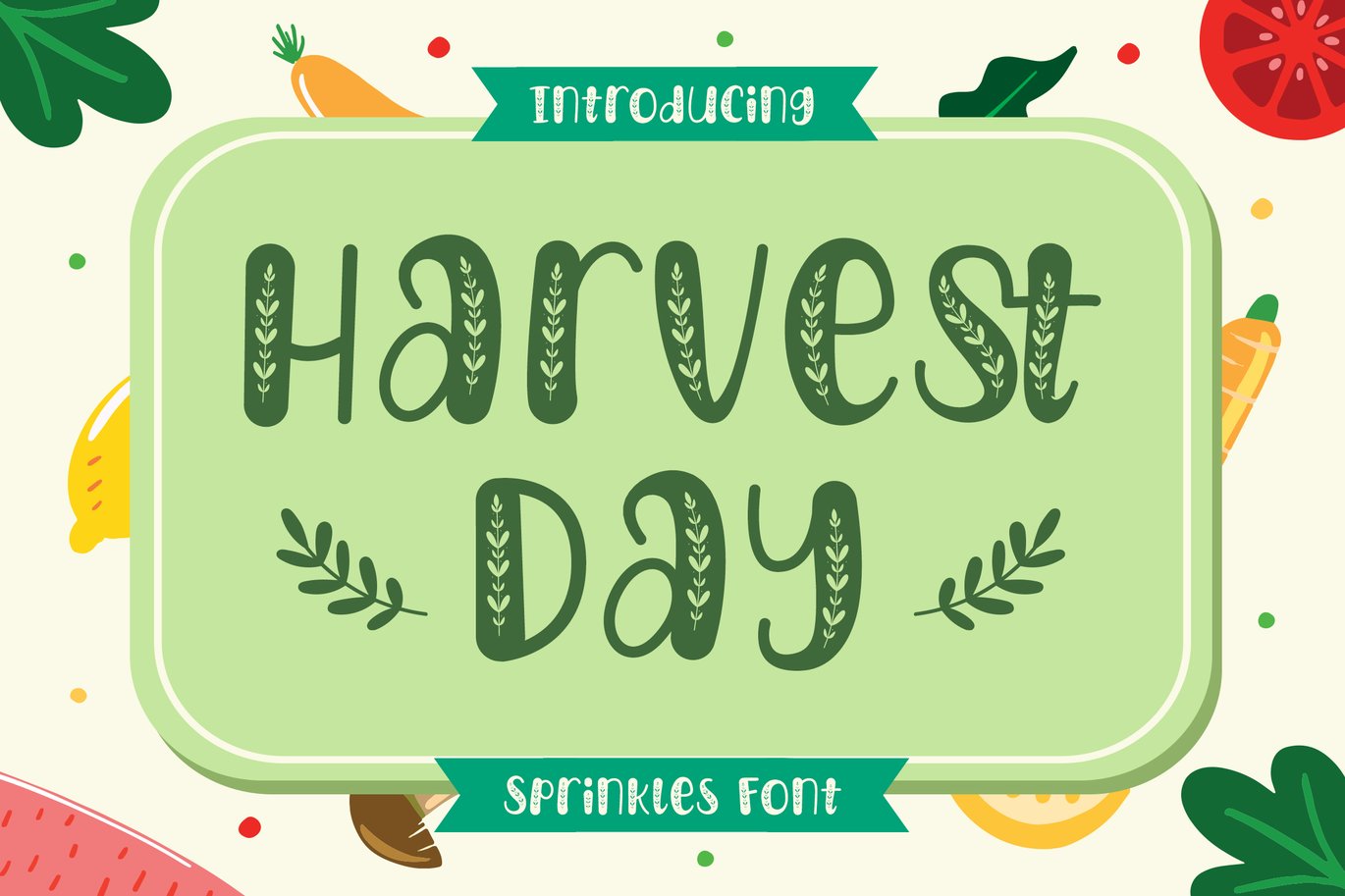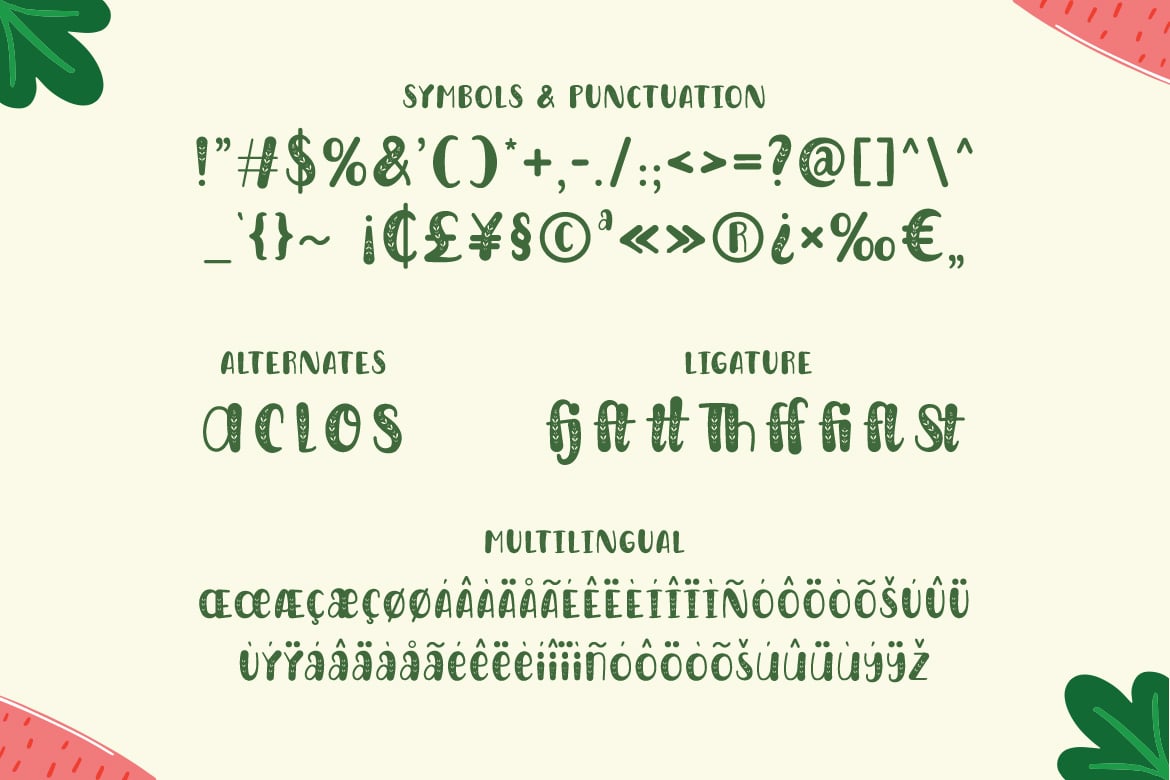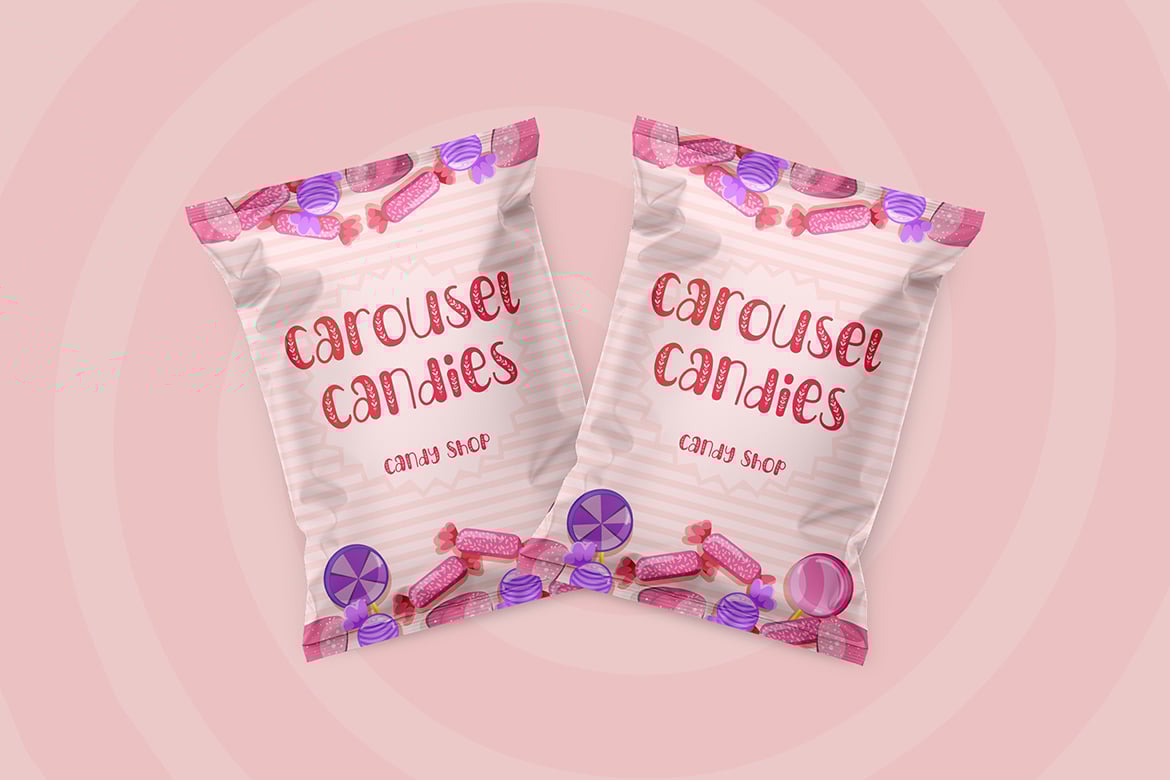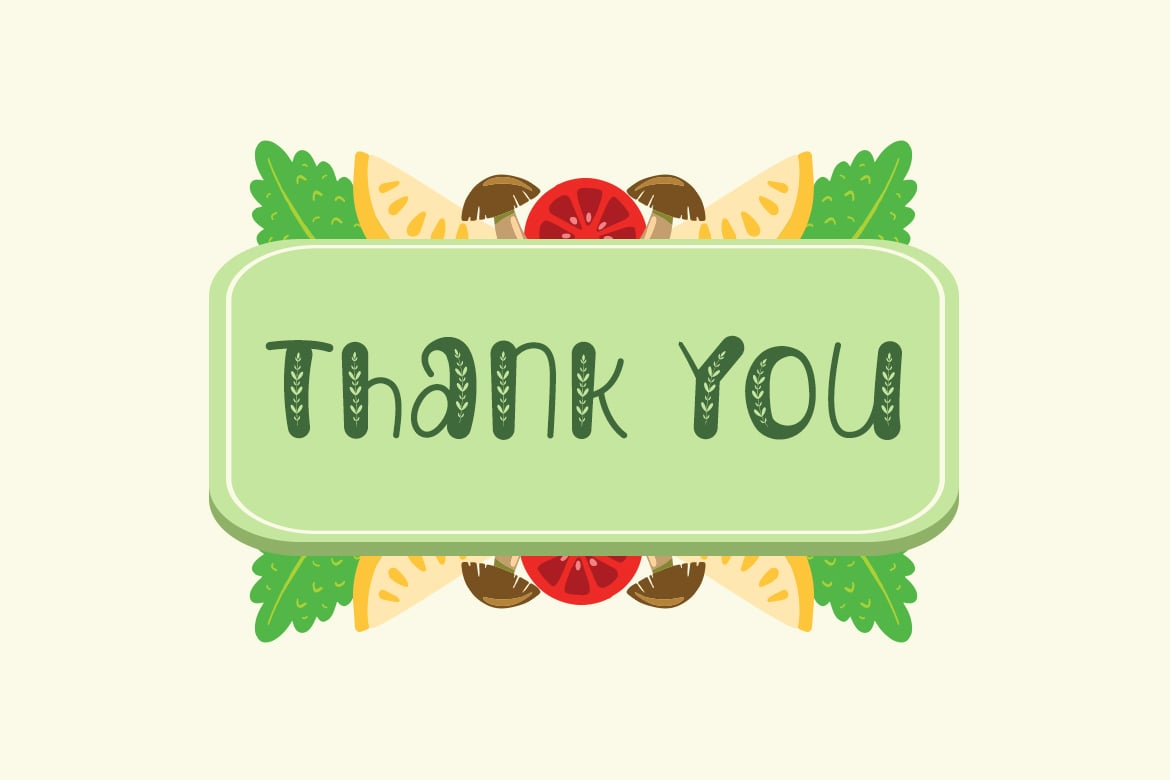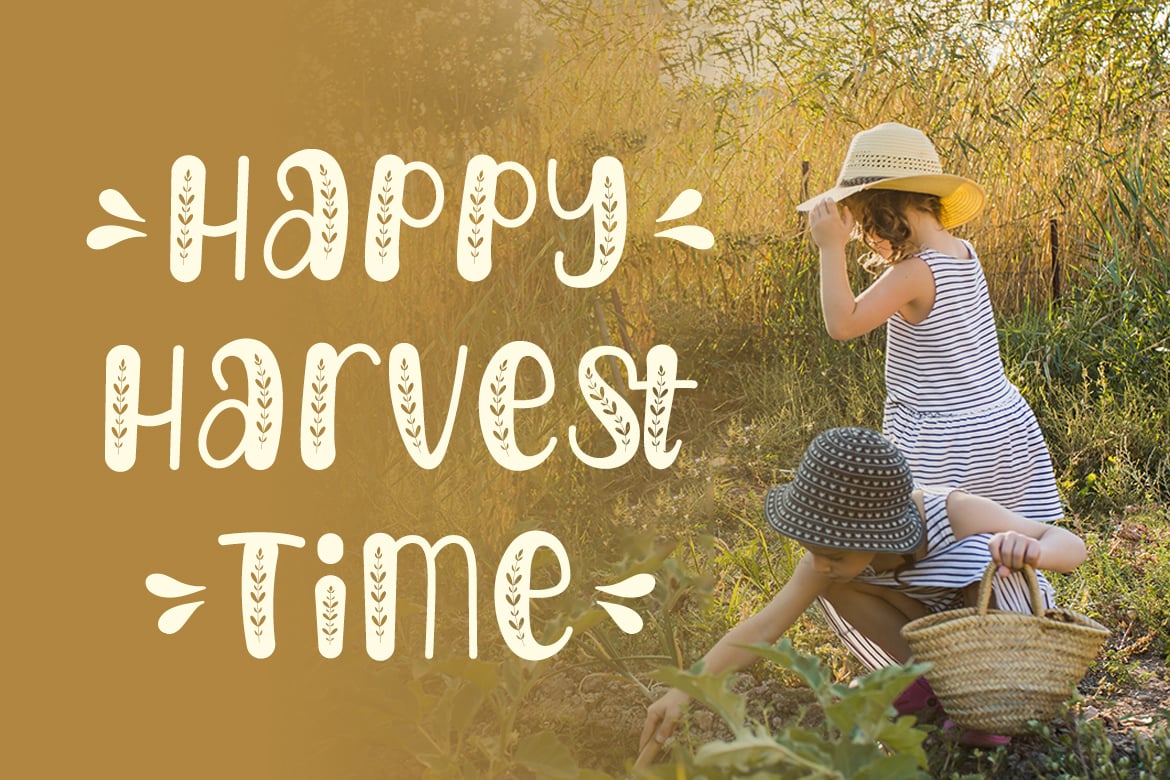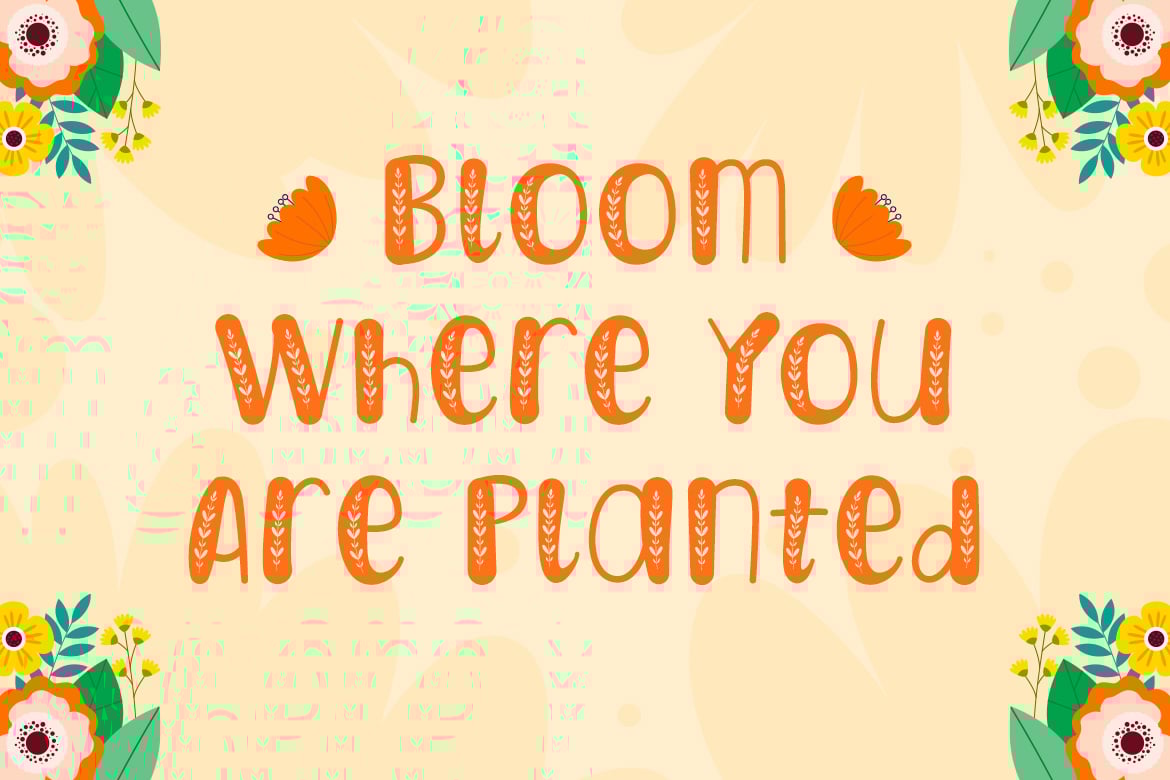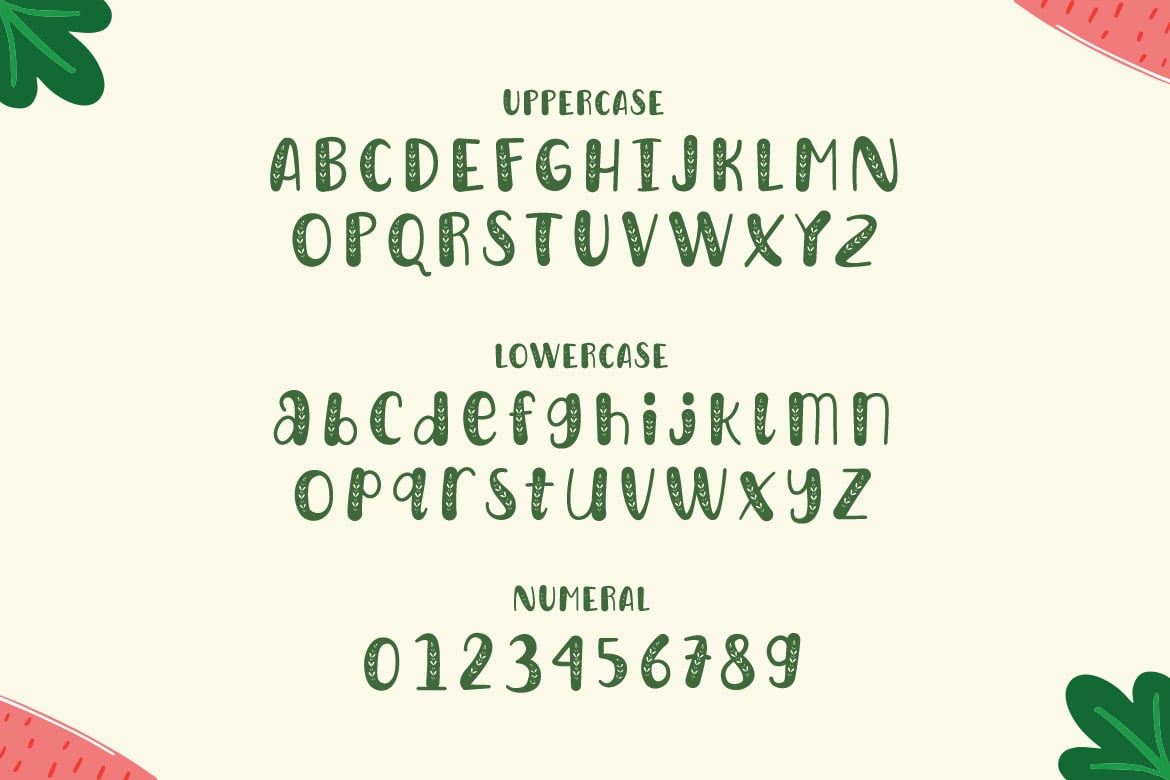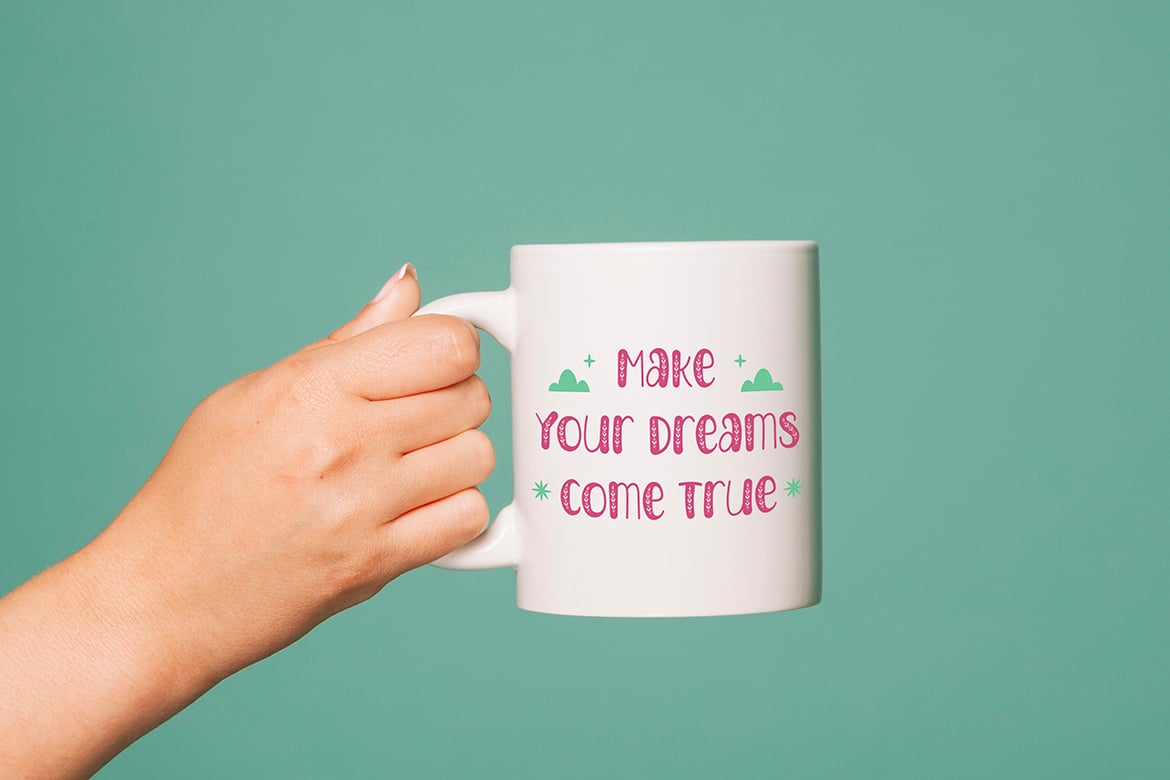
Harvest Day – Sprinkles Font
Harvest Day is sprinkles font.
This whimsical hand-crafted font sports sprinkles throughout.
Get inspired by its joyful look!